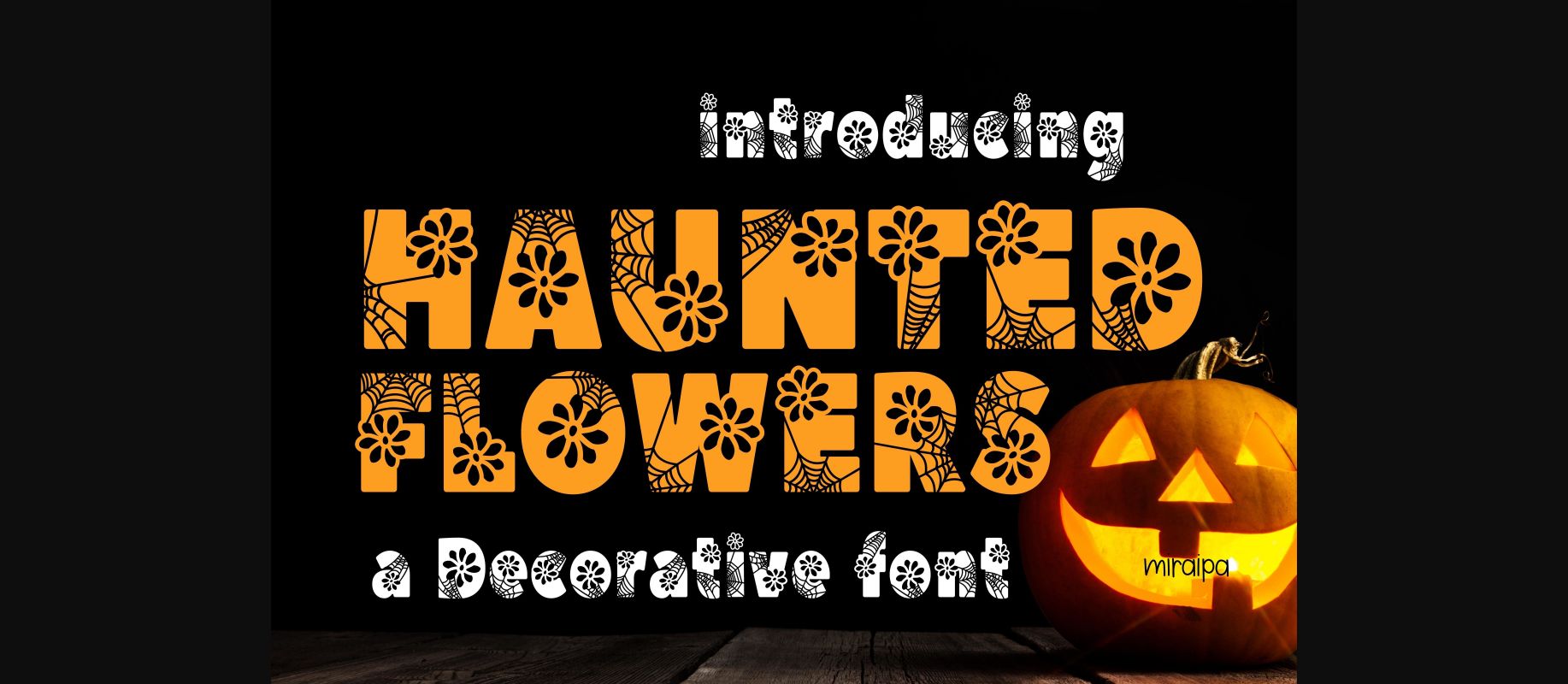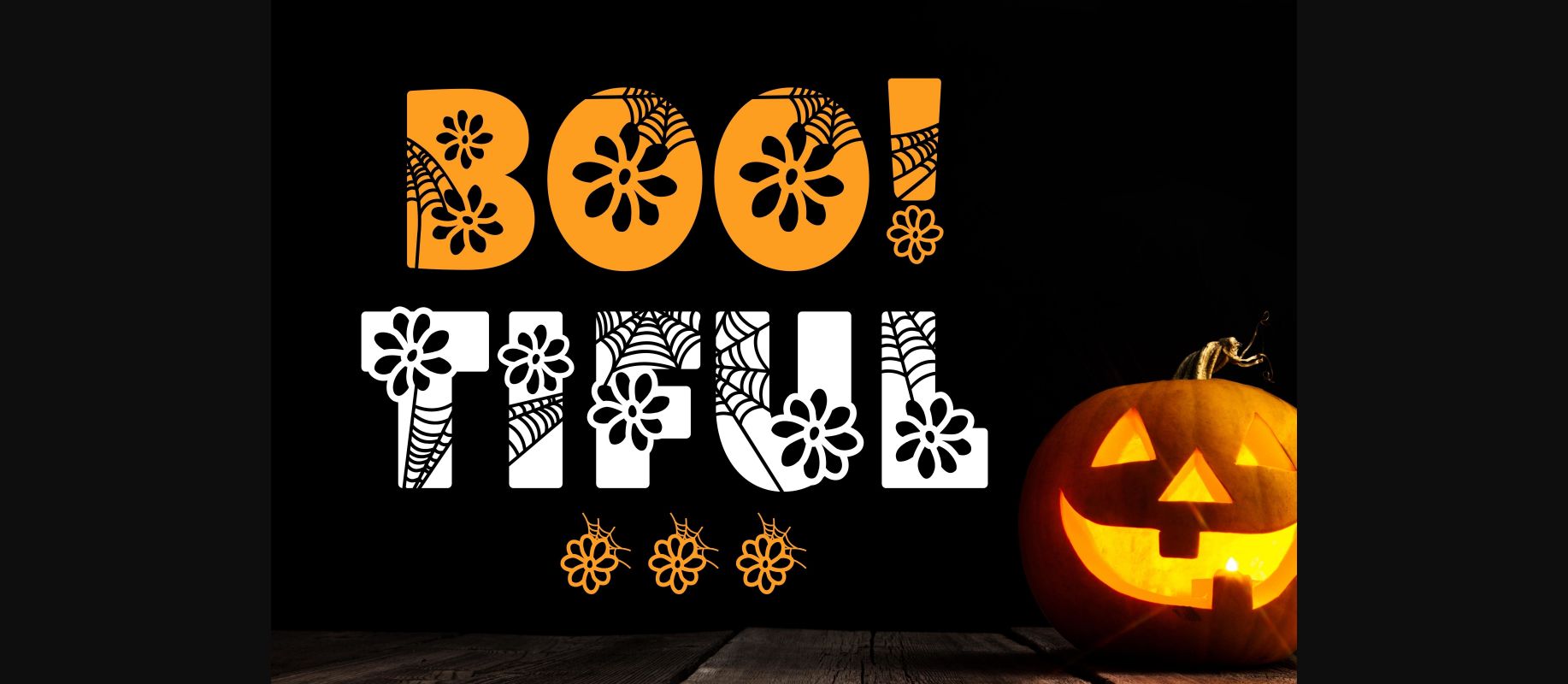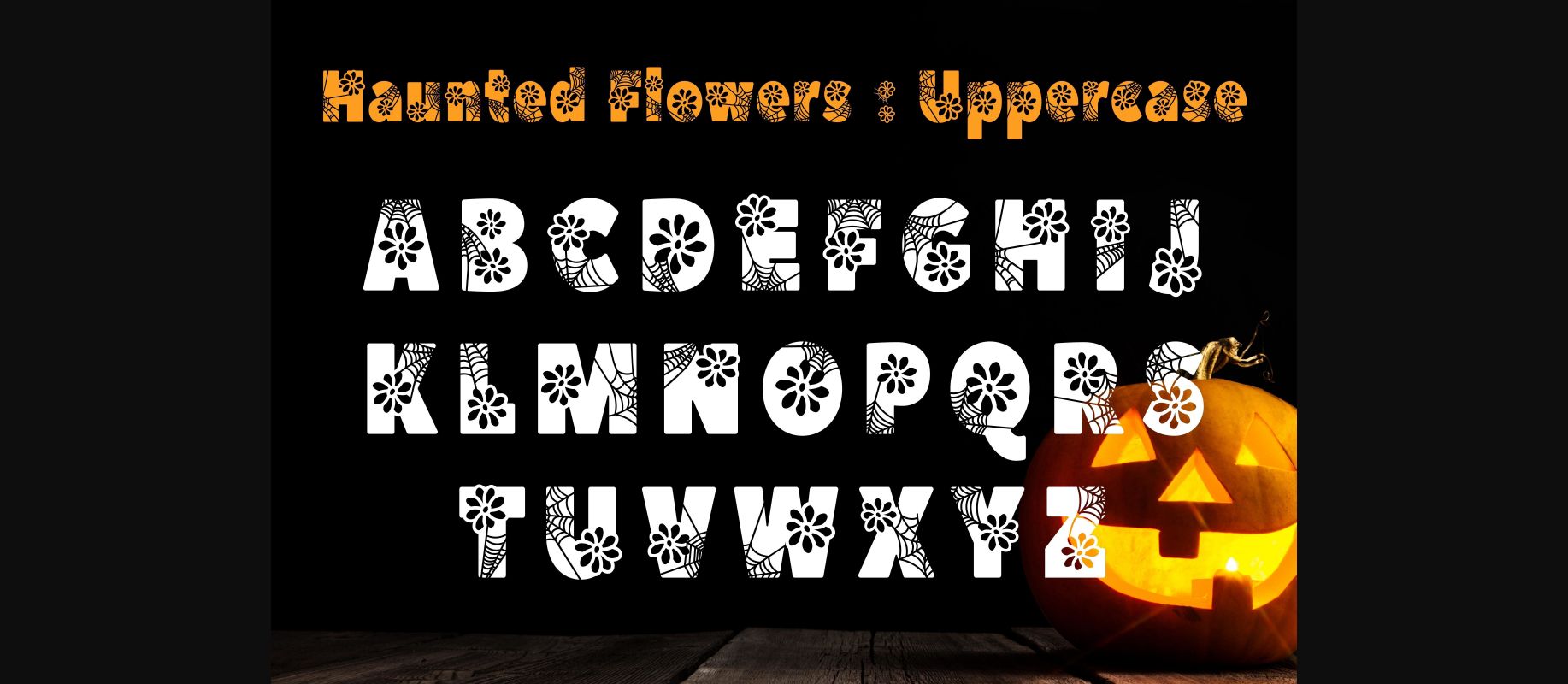
About Haunted Flowers Font
Haunted Flowers is a fun and spooky decorative font. Whether you’re using it for crafts, digital design, presentations, or making greeting cards, this font has the potential to become your favorite go-to font, no matter the occasion!